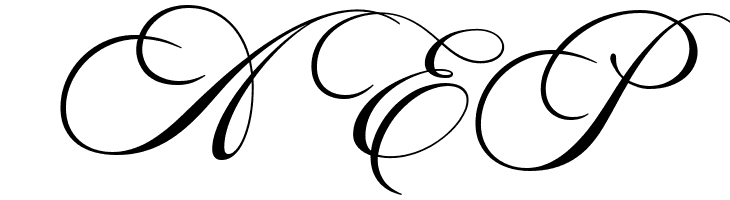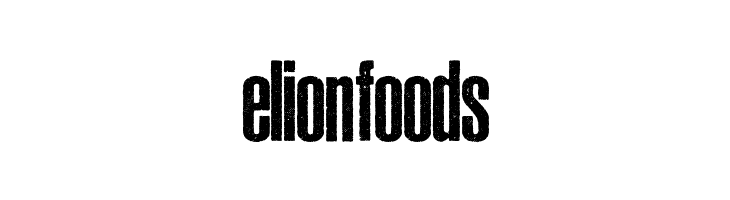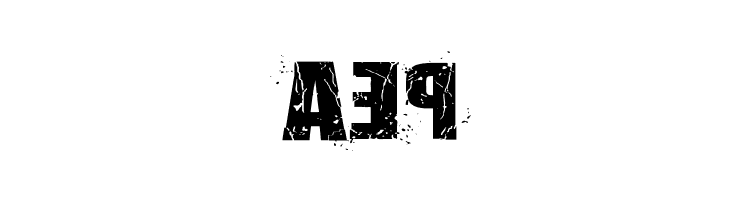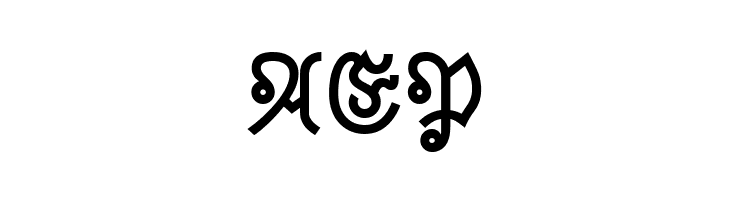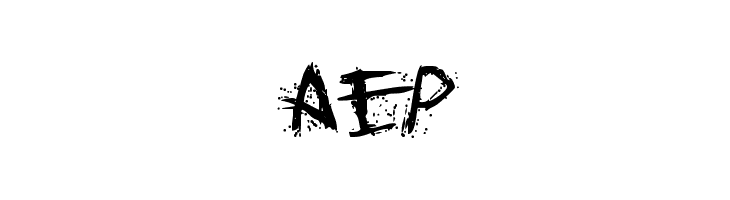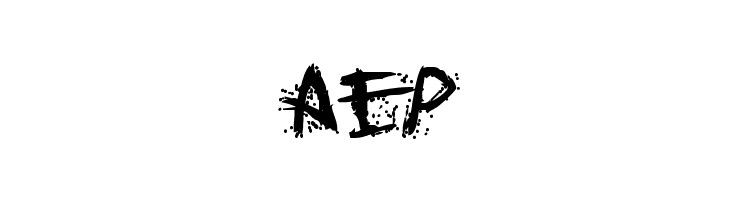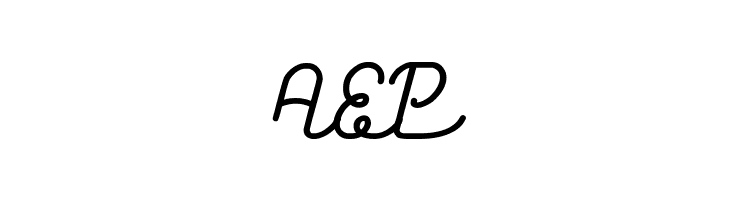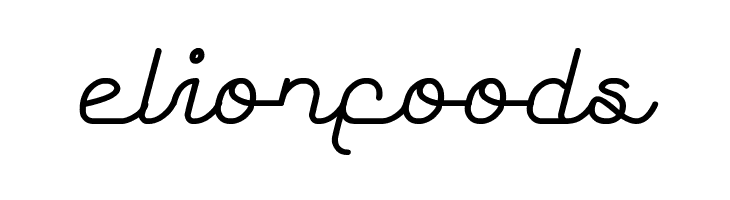
A bold, condensed font with a gritty, textured appearance ideal for impactful designs.
A bold, textured font with a rugged, vintage feel.
A gritty, distressed font with jagged, brush-like strokes.
A bold, edgy font with jagged strokes and a distressed, splattered ink effect.
A bold, modern sans-serif font with strong, uniform strokes and high legibility.
A bold, decorative font with intricate swirls and loops.
A bold, modern cursive font with interconnected characters and a playful style.
A bold, elegant script font with ornate, flowing curves.